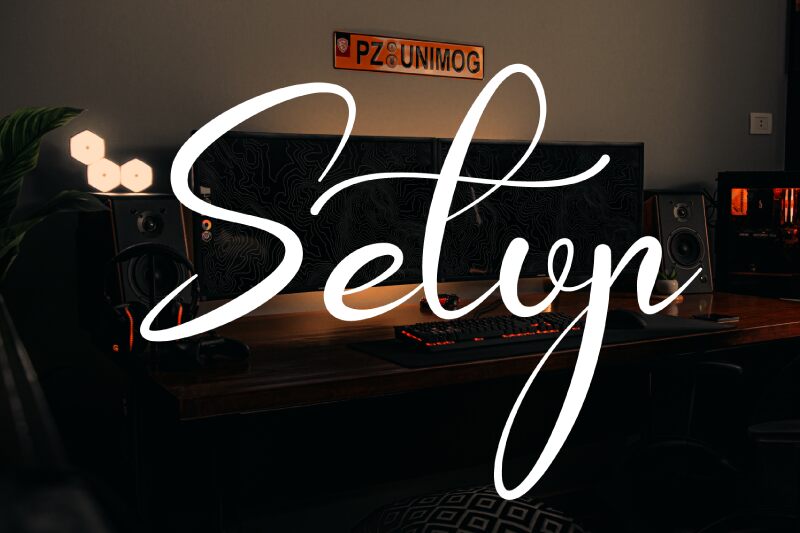
Setup Bold Italic
Setup Bold Italic font is a free handwritten font designed by Design Vector10. Its elegant and flowing style embodies sophisticated, modern aesthetics with expressive curves that lend the font an exquisite script style appearance. Providing a mix of elegance and creativity, this masterpiece skillfully combines trendiness with authenticity reflected in its every character.
Setup Bold Italic is perfect for logotype design and website headers; stylized quotes which must stand out from their backgrounds can find use for it. Add the extra visual value to CD covers or social media posts; gift packages can be made more interesting too along with product labels, book titles, posters, invitations or greeting cards – all made effortlessly amazing!